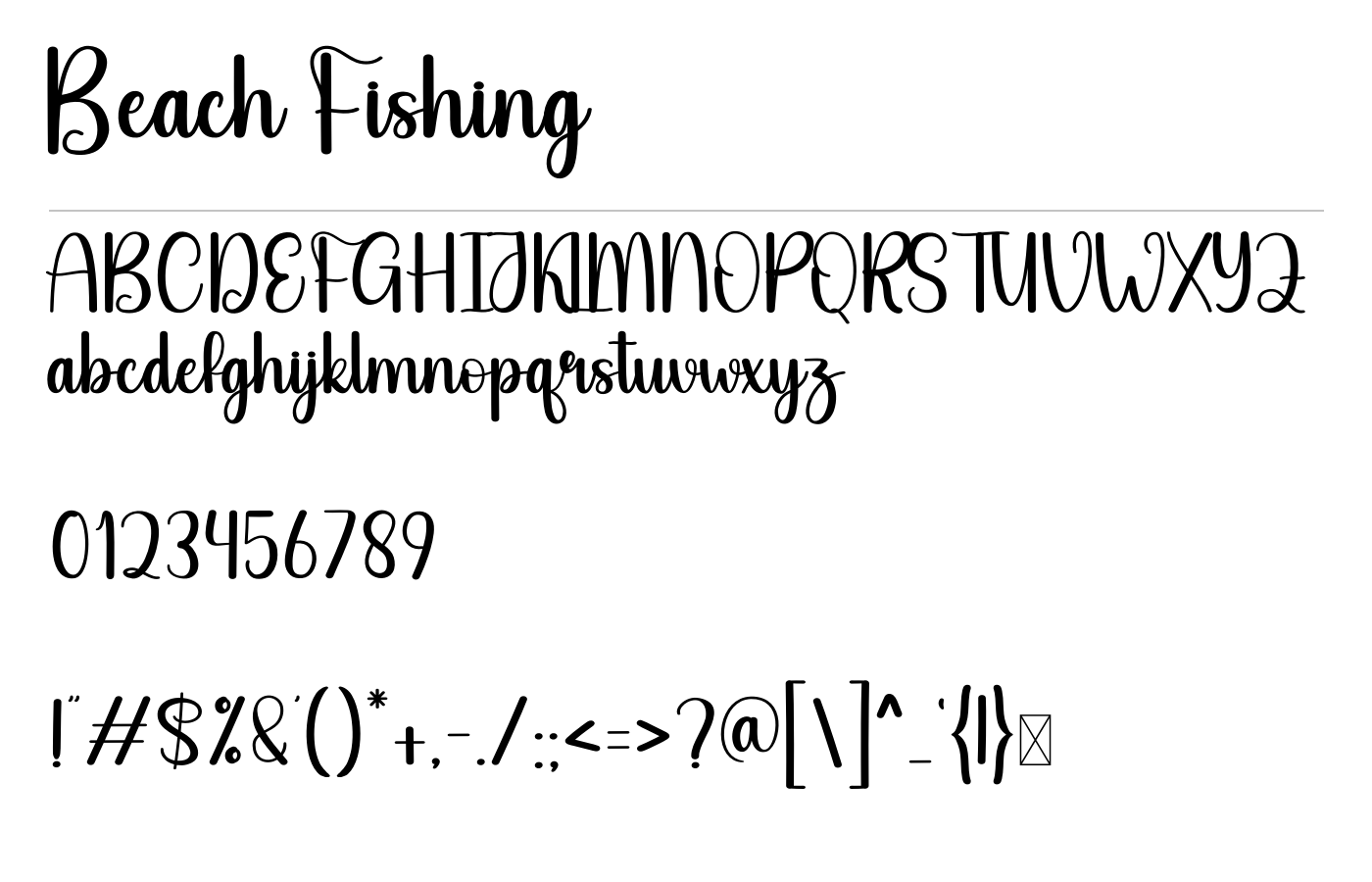
Beach Fishing is a playful and casual script font with slender, tall letterforms that suggest a relaxed, hand-lettered style. Its smooth curves and whimsical details make it perfect for beach-themed designs, invitations, and branding that seek a friendly and approachable vibe. This font works best in headlines, logos, and decorative text where a lighthearted, informal feel is desired.
Beach Fishing Font
About Beach Fishing Font